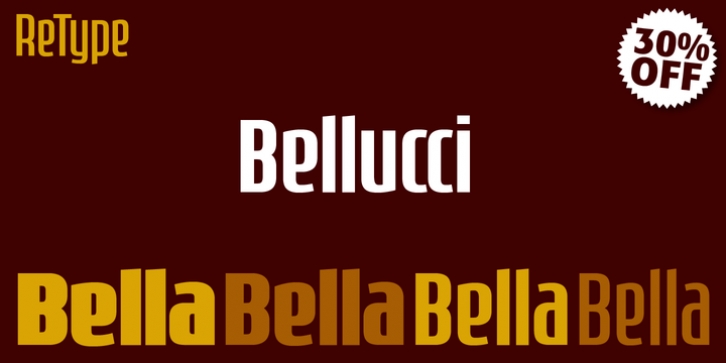
Bellucci is the redesign of Ramiro Espinoza’s first typeface, Mabella. Being not happy with the original design, he decided to redraw it completely and add 3 new weights.
Bellucci is a constructivist, modular, compressed family intended for headlines and posters.
The name is an homage to Mabel Bellucci, an Argentinian feminist activist.